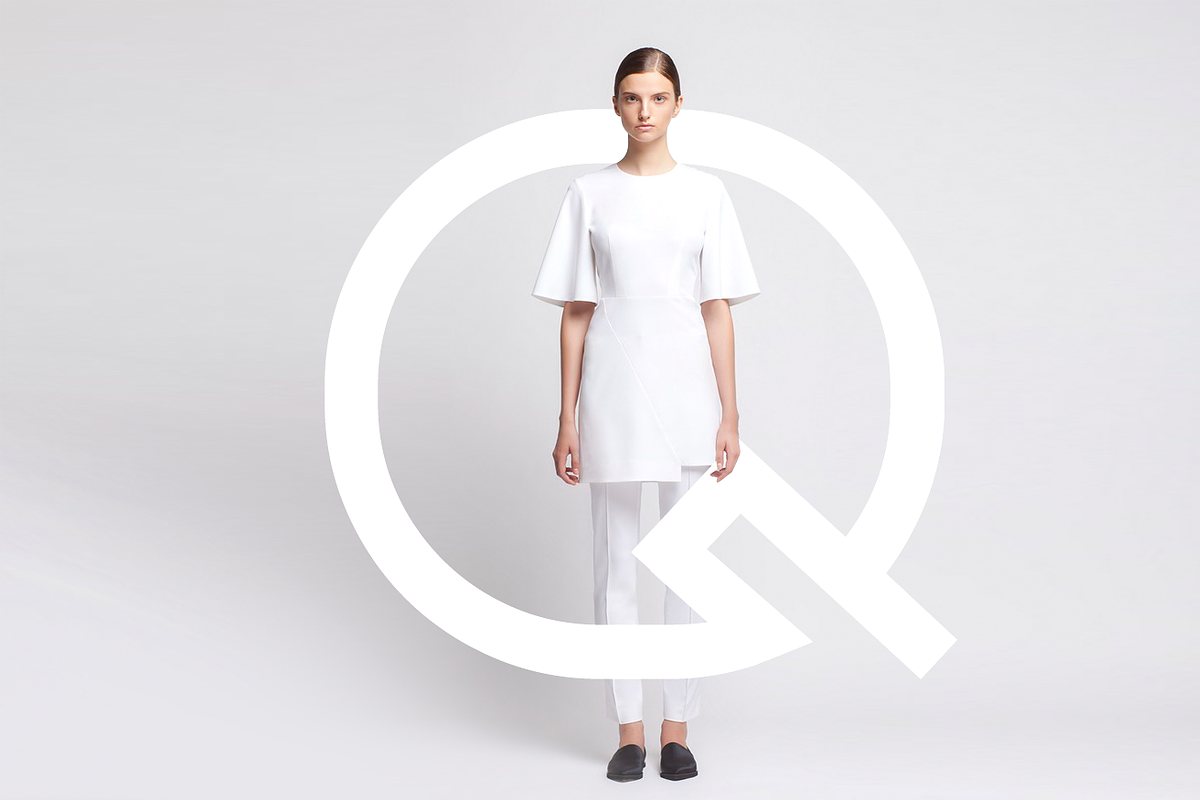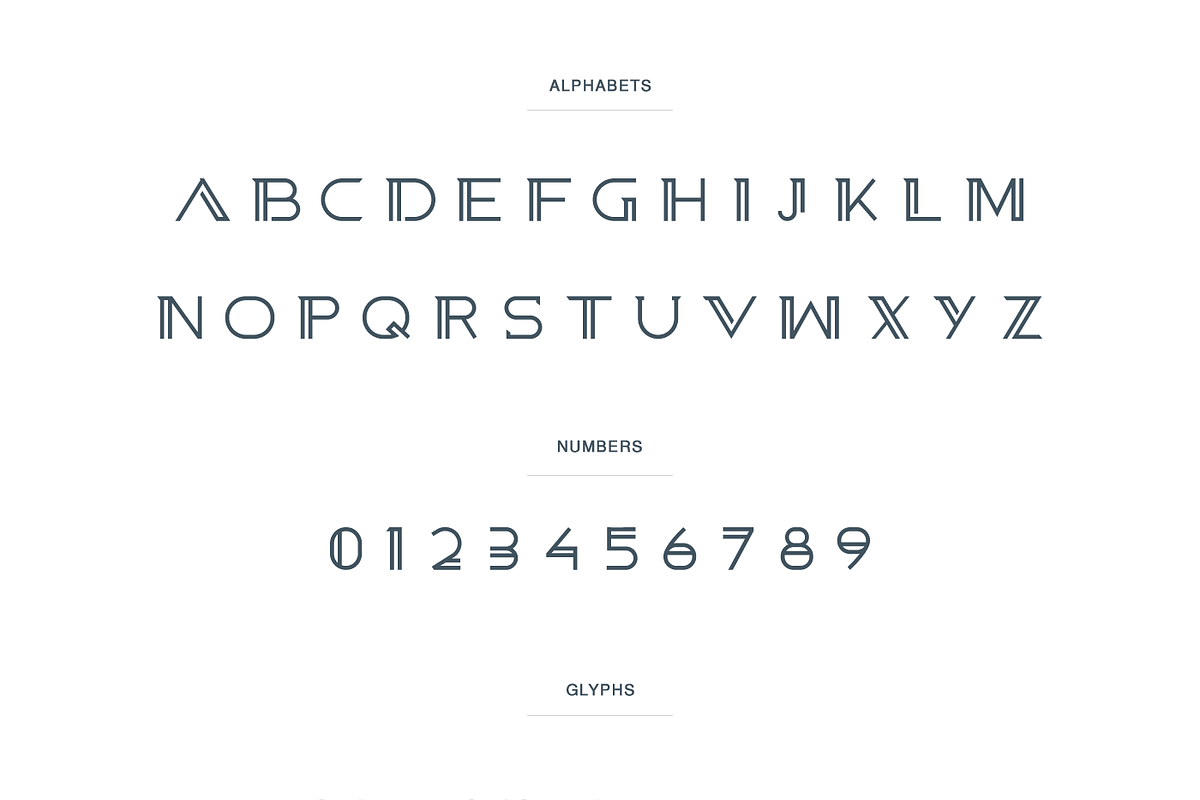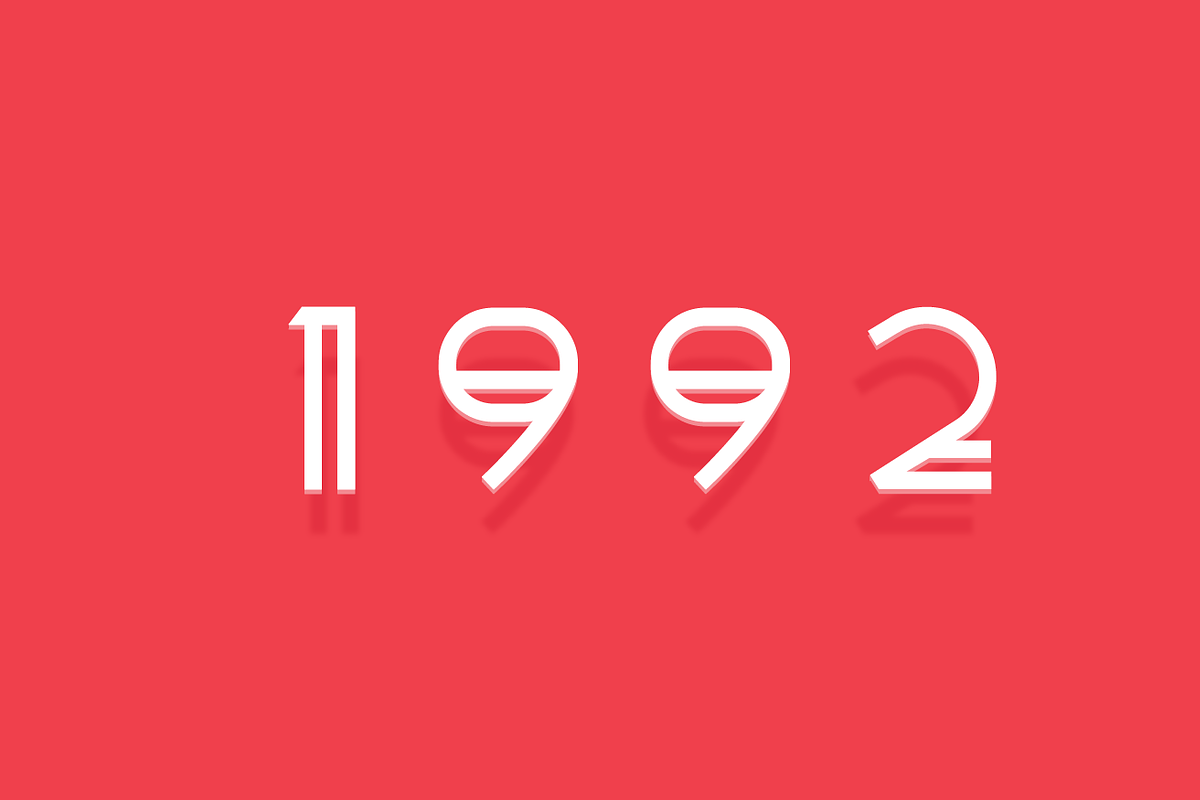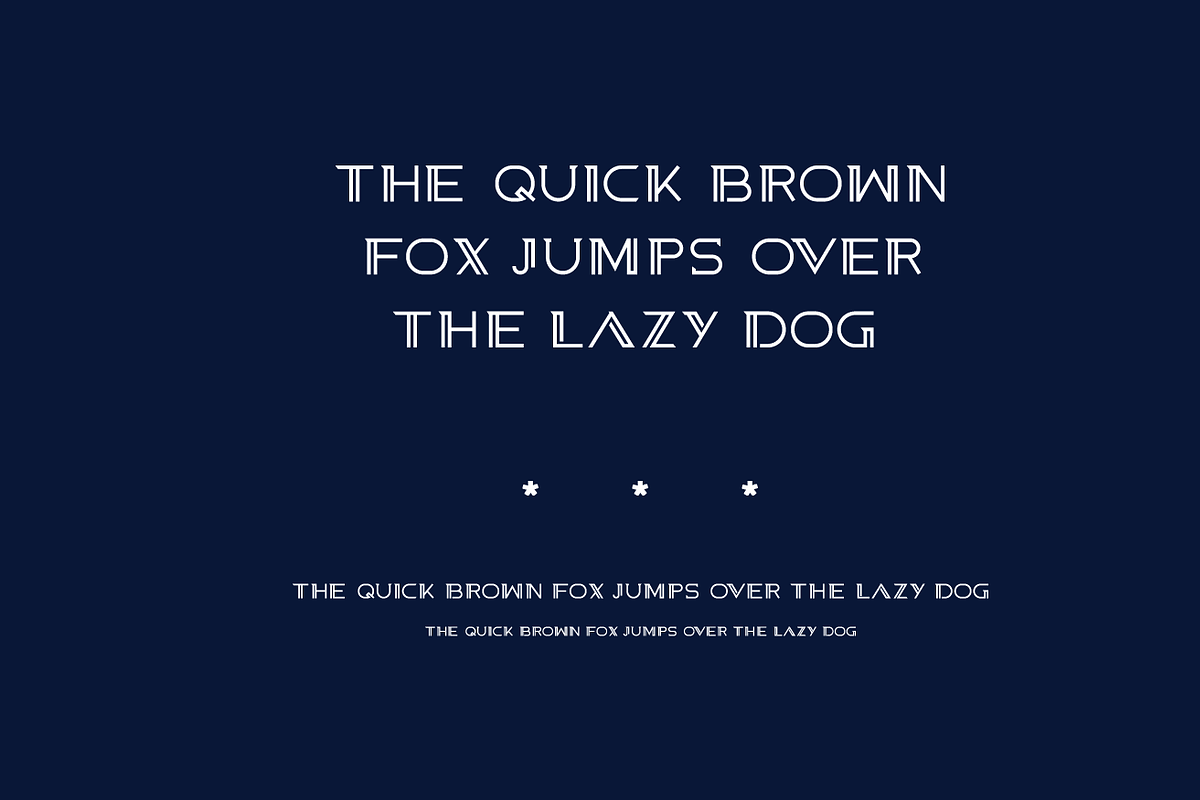
BELGA FONT
BELGA FONT by rahulchandh is a font selected for branding, posters, packaging, typography.
- "Belga" is an uppercase typeface.
Why BELGA FONT is worth a look
BELGA FONT by rahulchandh fits naturally into Branding, posters, packaging, typography.